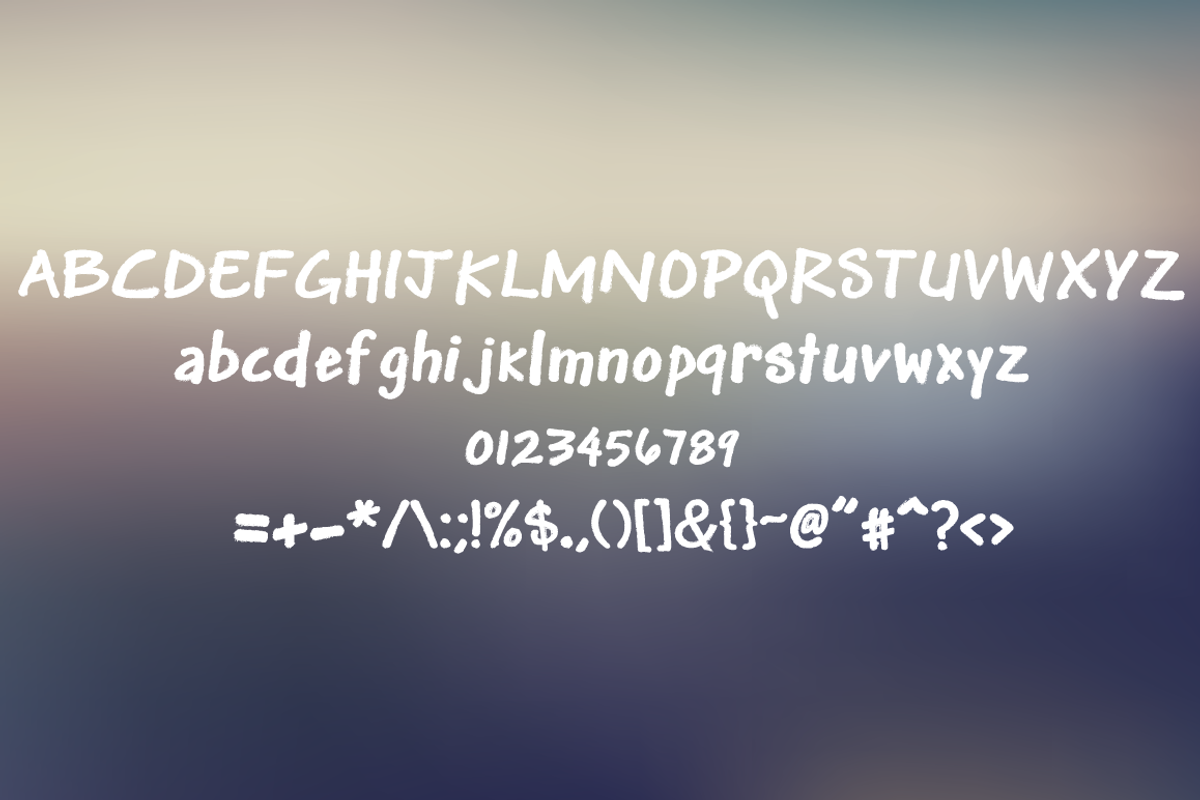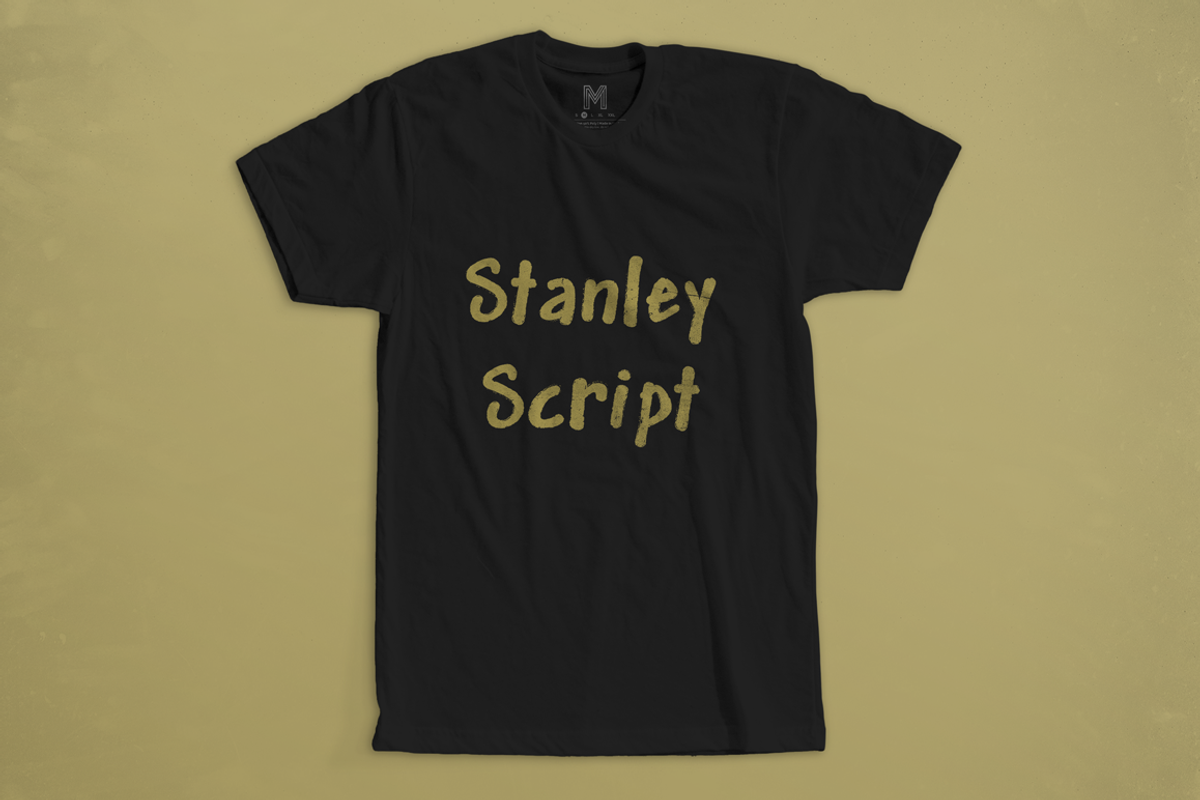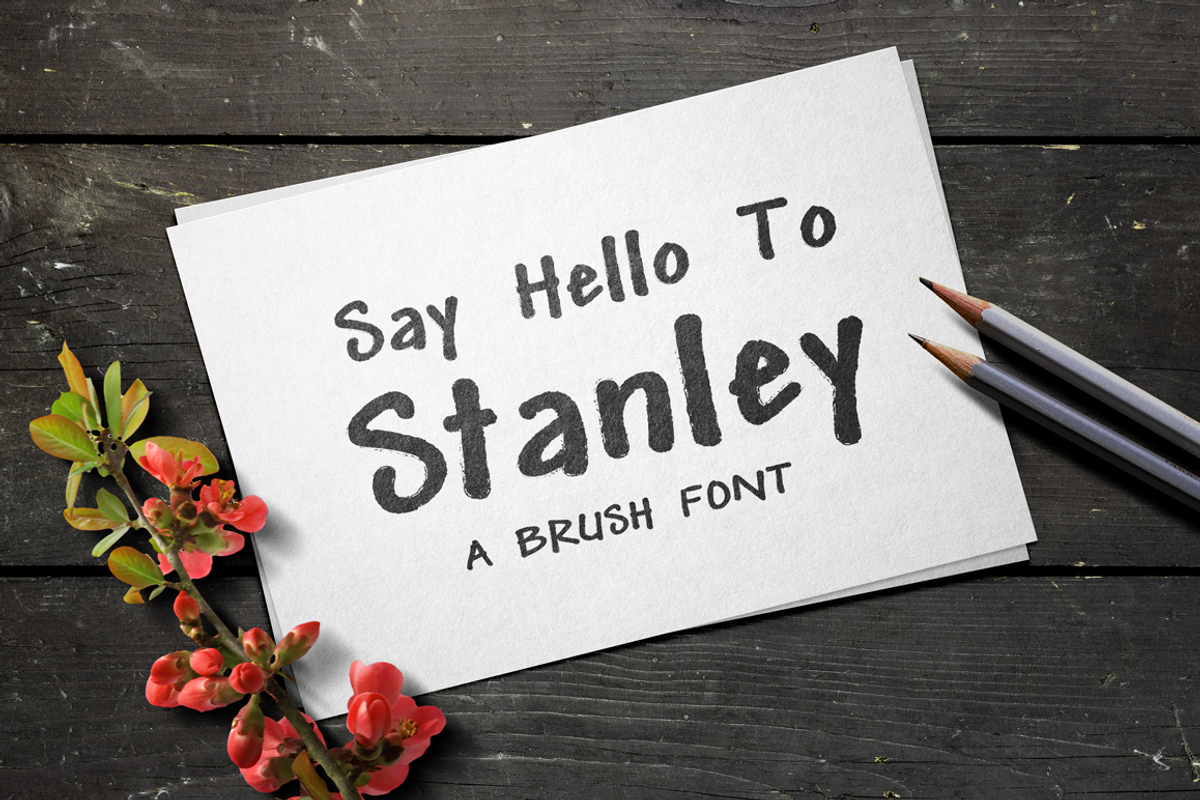
Stanley Brush Font
Stanley Brush Font by Vecticons is a font selected for branding, posters, packaging, typography.
Why Stanley Brush Font is worth a look
Stanley Brush Font by Vecticons fits naturally into Branding, posters, packaging, typography.